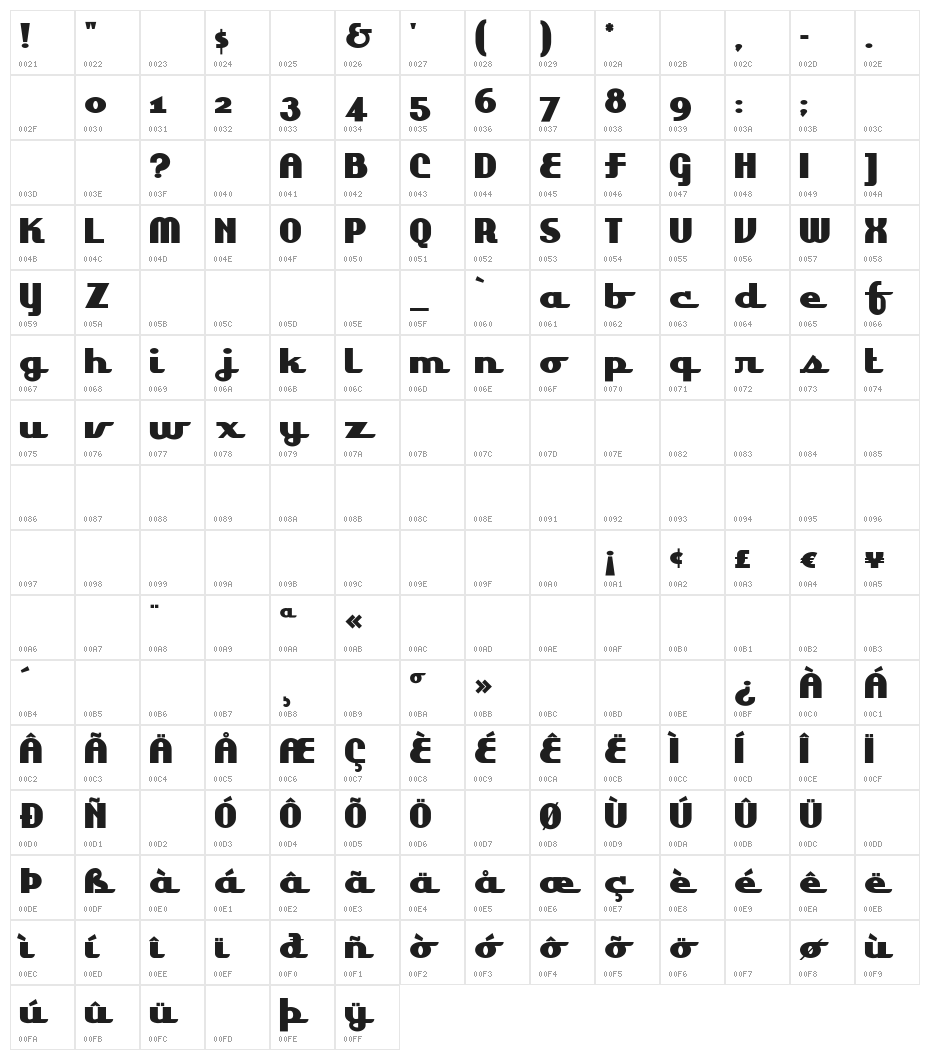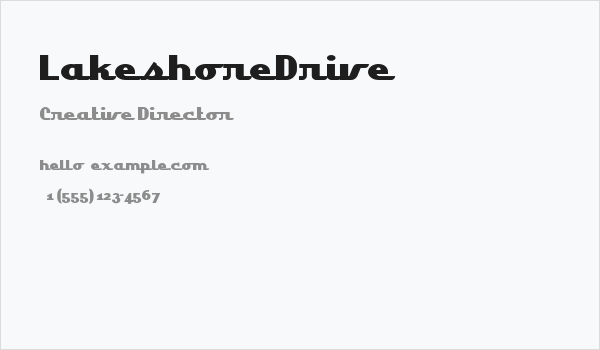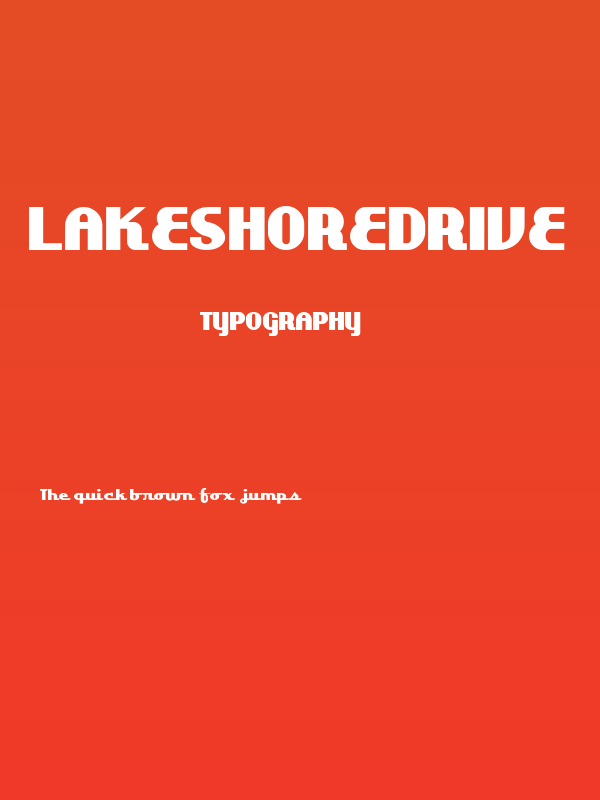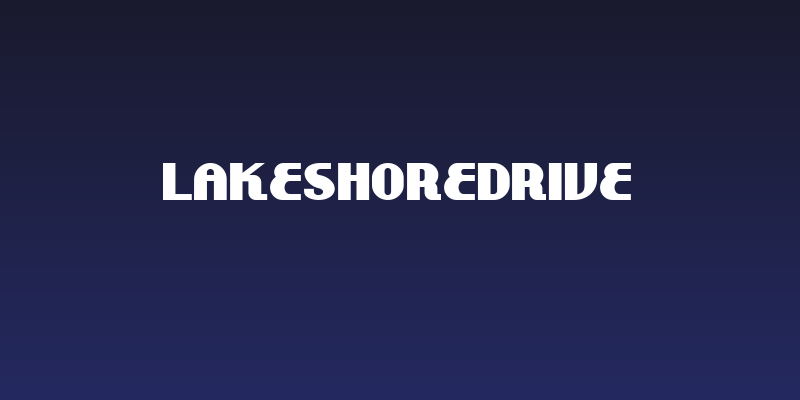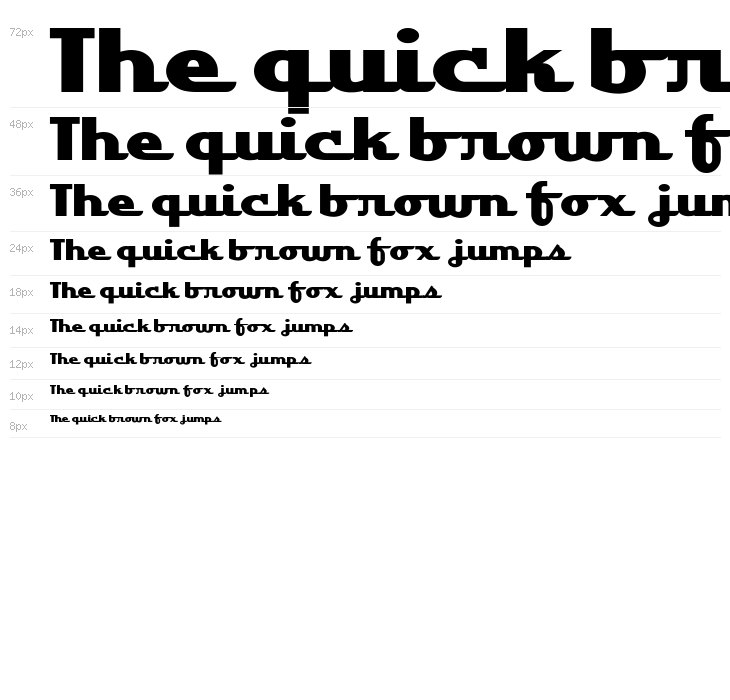
LakeshoreDrive Font
LakeshoreDrive Description
This font features a bold and striking design with a unique blend of geometric and decorative elements. The uppercase letters are characterized by thick, block-like forms with subtle curves, giving them a strong presence. The lowercase letters maintain a similar weight but introduce more fluidity and rounded shapes, adding a touch of elegance. The numbers are bold and consistent with the overall style, ensuring readability. Special characters are designed to complement the main set, with a focus on maintaining the bold aesthetic. This font is ideal for making a statement, combining modern design with a hint of vintage flair.
| Overall Style | Modern, Vintage |
| Proposed Projects | Ideal for branding, poster design, headlines, and any project requiring a bold, eye-catching typeface. |